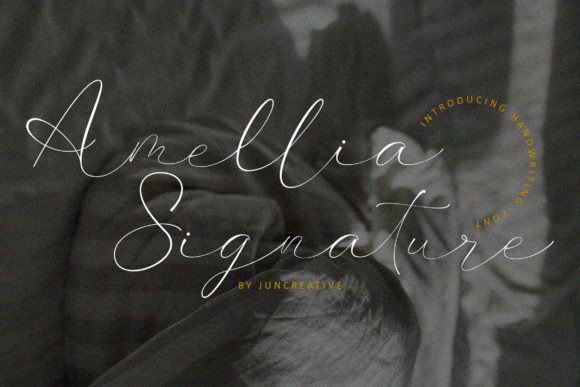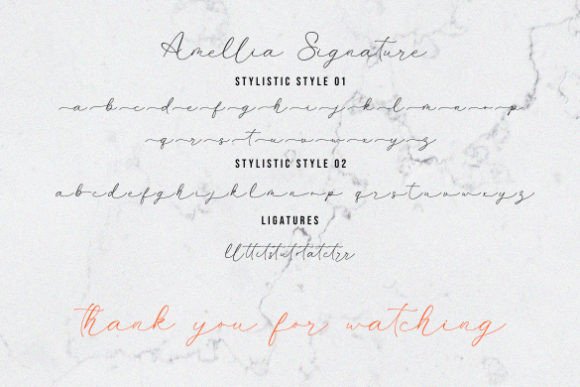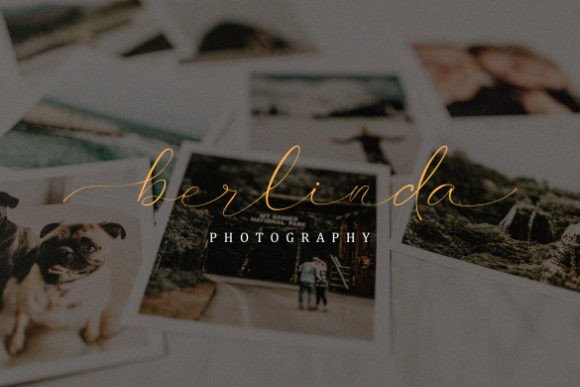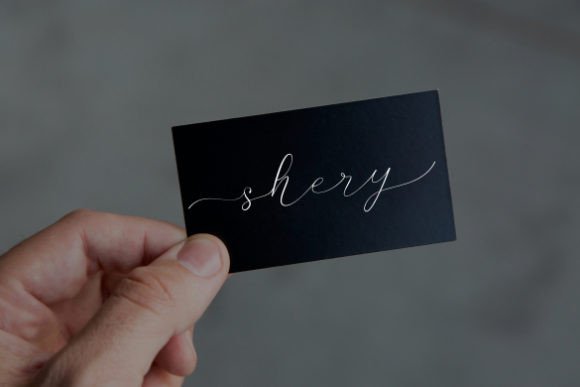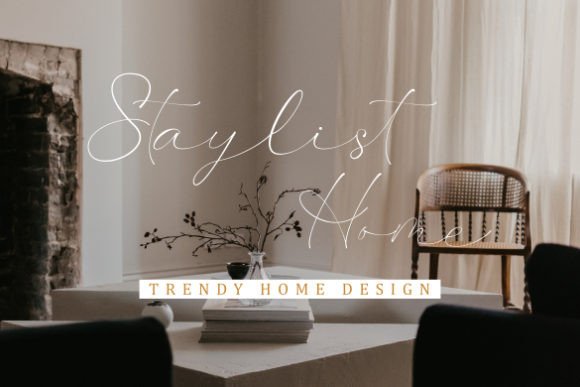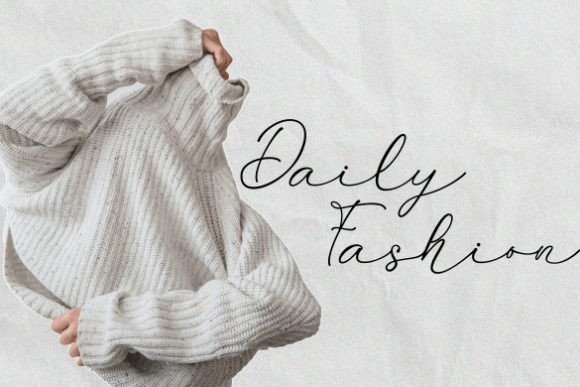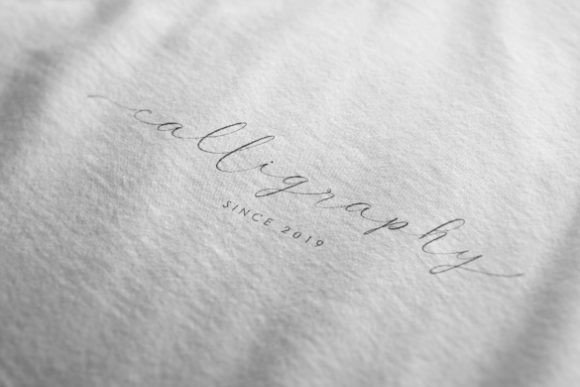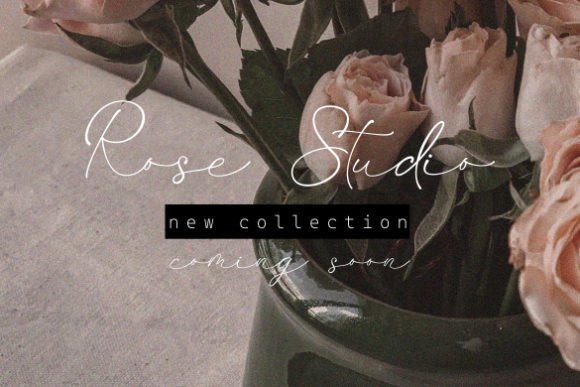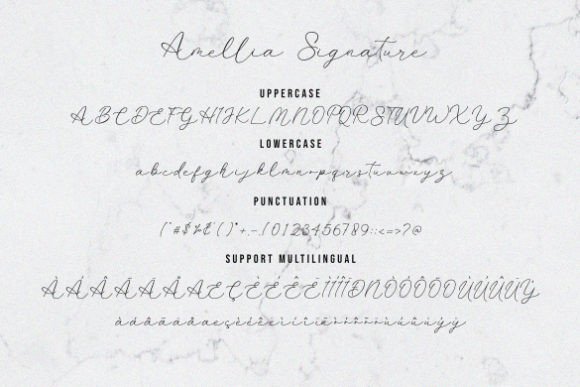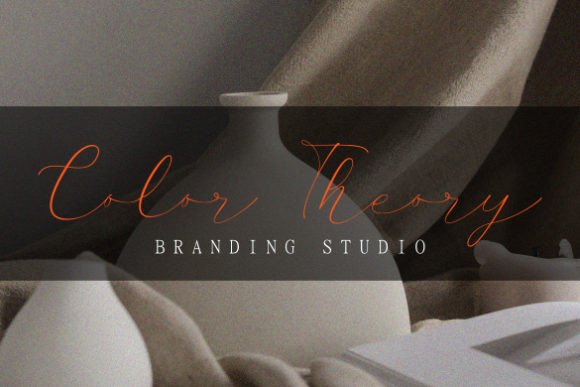
Amellia Signature Font
About Amellia Signature Font
**Amellia Signature: A Dazzling Script Font**
**Amellia Signature** is a dazzling script font that exudes elegance and sophistication. Neatly crafted with intricate details, this font is a valuable addition to your font library, capable of enhancing a wide range of creative projects, regardless of the topic or theme.
This font’s striking and detailed script letterforms make it stand out as a unique and eye-catching choice. It conveys a sense of beauty and charm, making it an ideal choice for projects that require a distinct and elegant appearance.
**Amellia Signature** has the potential to elevate your creations in various applications. Whether you’re working on invitations, branding, packaging, posters, or any other design project, this font adds a level of intricacy and charm to your work.
For invitations and event-related designs, **Amellia Signature** enhances the celebratory and luxurious aspects of your projects, setting a memorable tone for special occasions.
In branding and packaging, this font ensures that your products and visual identity stand out with a sense of refinement and detail, leaving a lasting impression on your audience.
In conclusion, **Amellia Signature** is more than just a font; it’s a design asset that brings dazzle and refinement to your creative projects. Whether you’re designing for special events, branding, or various other contexts, choose **Amellia Signature** to infuse your work with its intricate and captivating charm. Embrace its detailed beauty, and let your creativity shine with sophistication.